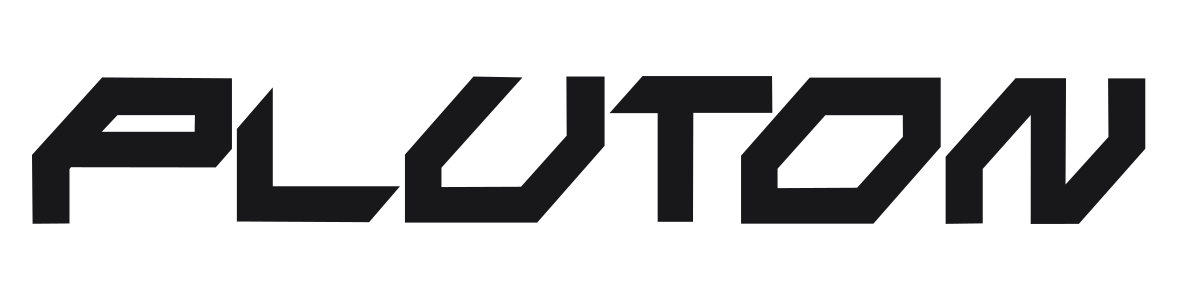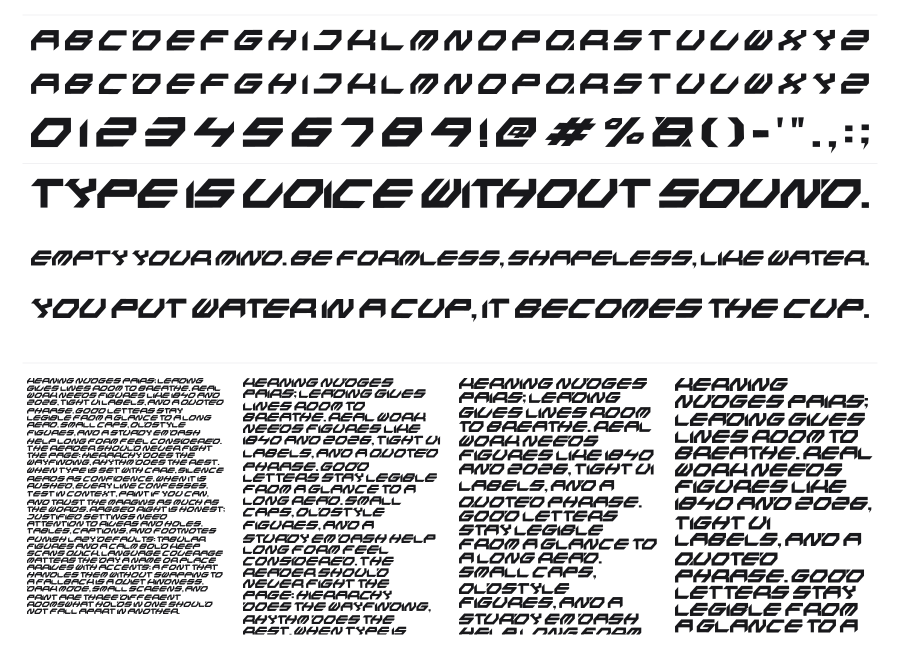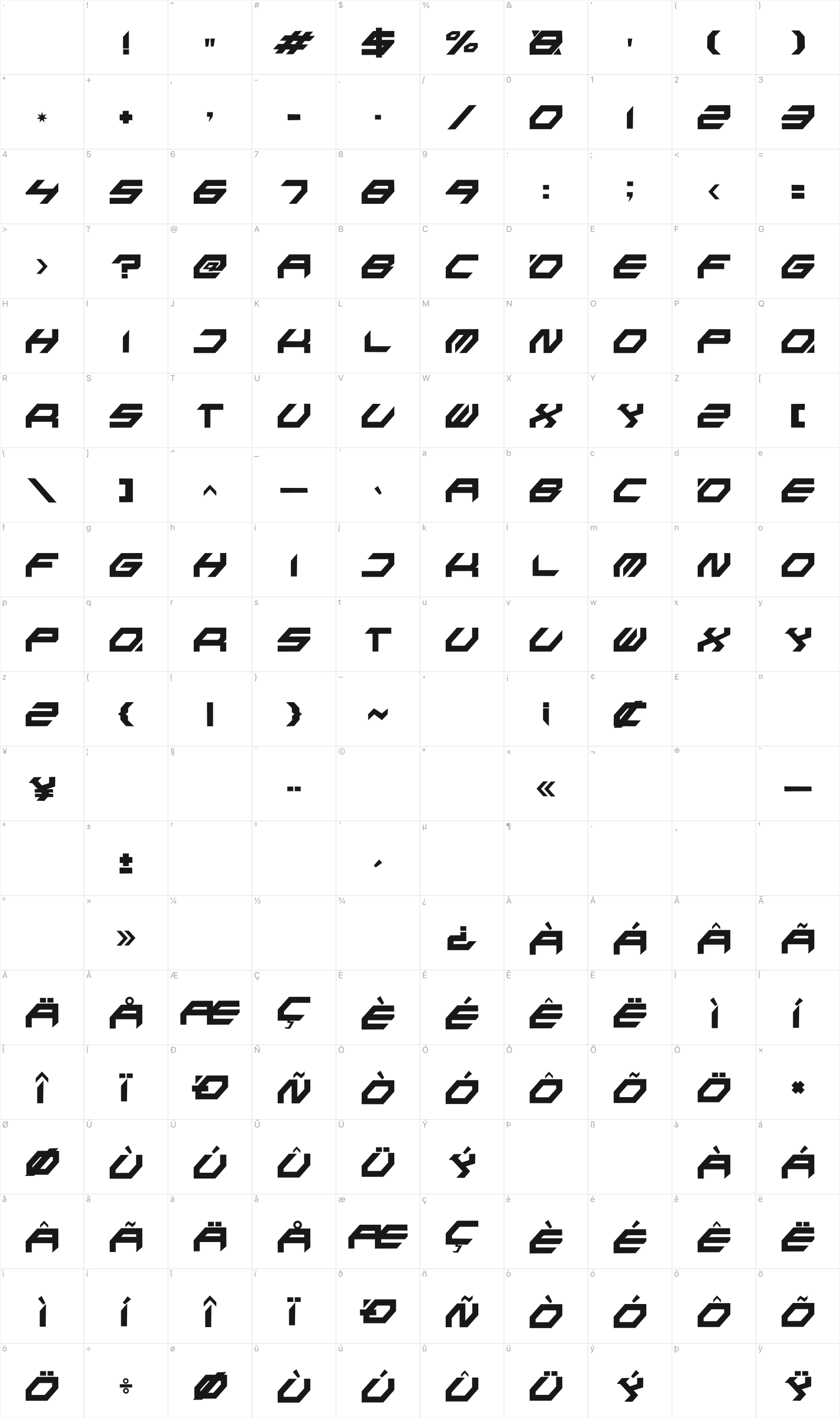
Pluton
Pluton is a bold oblique techno sans with aggressive angular cuts and a sharp forward-leaning stance. Every character is built from hard diagonals and sheared terminals, eliminating softness entirely in favor of raw momentum. It reads immediately as sci-fi or high-octane action, strong at large sizes for titles, posters, and game branding.